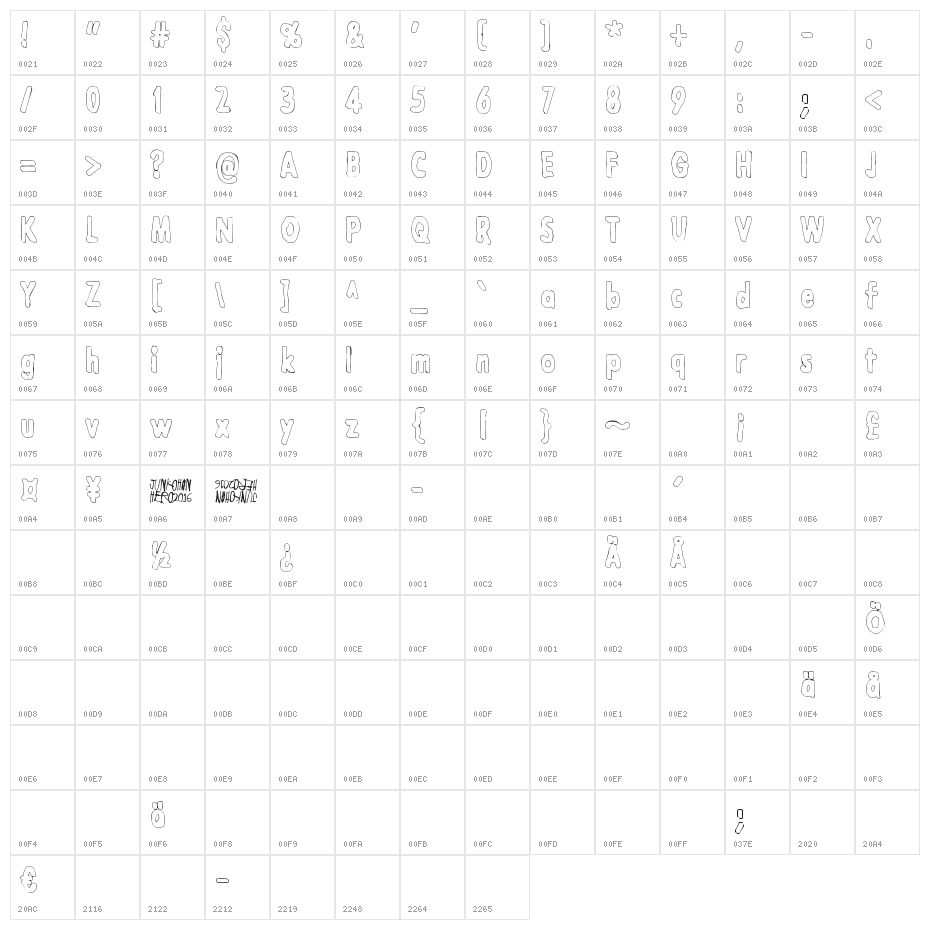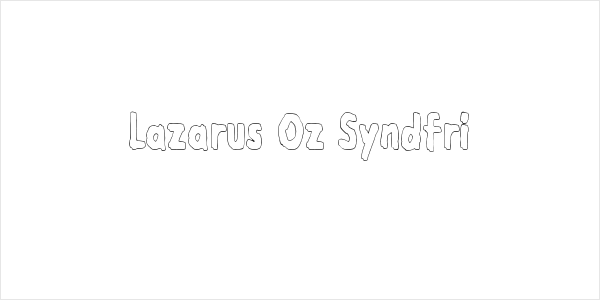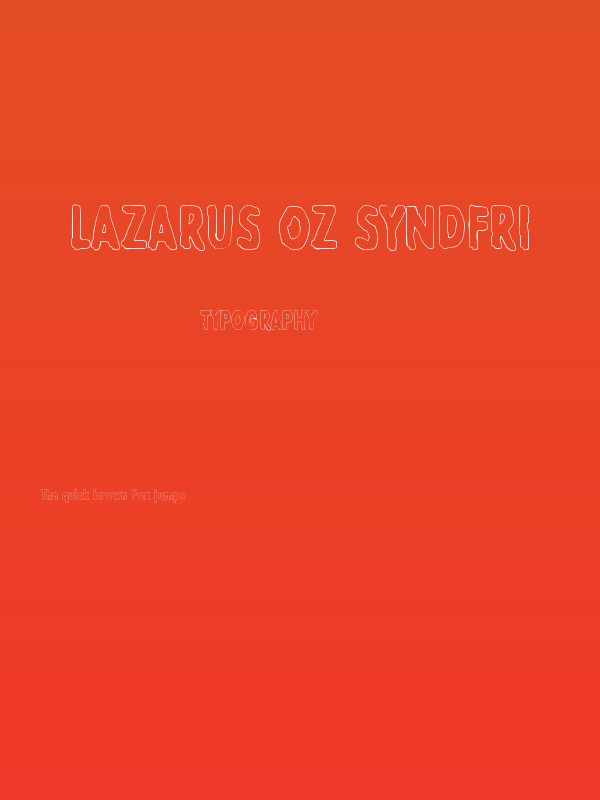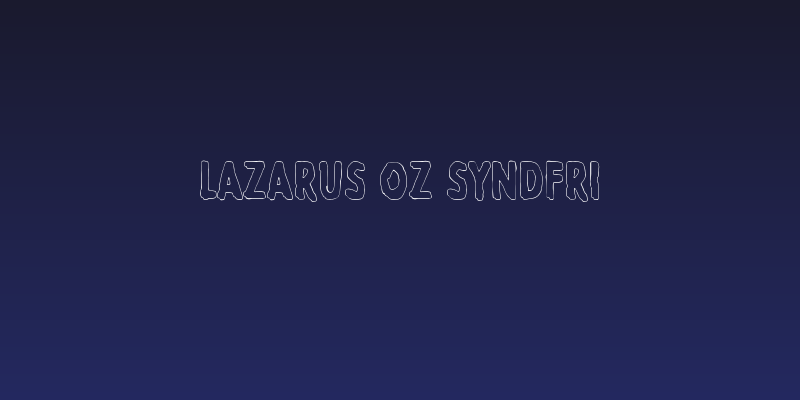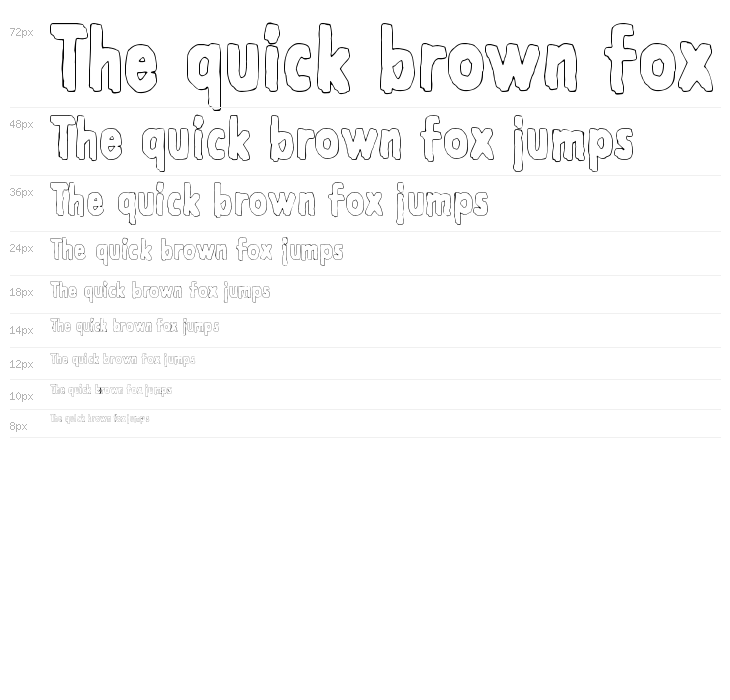
Lazarus Oz Syndfri Font
Lazarus Oz Syndfri Description
This font features a playful, hand-drawn style with a bold outline that gives each character a unique, organic appearance. The letters are slightly irregular, adding to the whimsical and informal feel. The uppercase and lowercase letters maintain a consistent style, with rounded edges and a slightly inflated look. Numbers and special characters follow the same design, ensuring a cohesive appearance across all glyphs. This font's distinctive outline and casual style make it stand out, perfect for projects that require a fun and approachable aesthetic.
| Proposed Projects | Ideal for children's books, comic strips, playful branding, and casual invitations. |